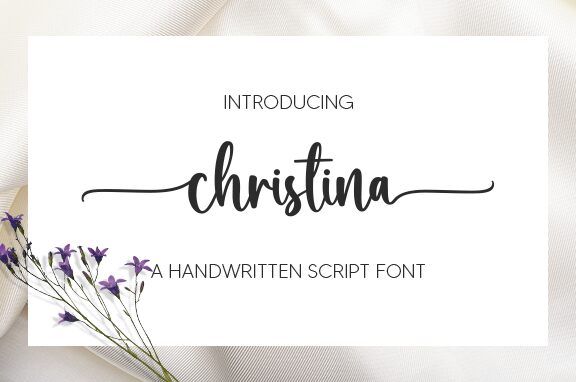
Christina
Christina, a handwritten script font designed by Aldi Raya Pradipta, is perfect for adding a personal touch to your projects. Its narrow width makes it ideal for titles, logos, and even short paragraphs.